Choosing fonts is more important than you think in design nowadays. They show style and what a brand is all about, not just letters. That's where futuristic fonts fit in. They're cool and look ahead, reminding you of high-tech stuff, sci-fi, and simple designs. If you want your designs to look modernโlike for a website, app, or posterโfuturistic fonts are great.
But there are tons of fonts online, so it's tough to pick good ones. So, I've put together a list of over 24 futuristic fonts, some free and some you pay for, that are awesome for your next project. There are monospaced fonts that look like code and bold fonts that shout sci-fi, so I've got all bases covered.
Whether you're a designer, developer, or just want to make a design cooler, you'll find a font here that makes your work stand out.
Top Free Futuristic Fonts
1. Hello Space Font
Hey there! Hello Space is a super cool font that looks like it's from the future. It's perfect for posters, flyers, or anything you want to print. Give it a shot in your designs and see what awesome stuff you can create!
2. Cascade Font
Cascade is a great font if you're going for a futuristic look in your designs. Think posters, game or music covers, movie titles, logos โ that sort of thing.
You'll love its fun style, and itโll add a personal touch to your projects!
3.Sacred North Font
Sacred North is a cool, uppercase font that looks great! It takes cues from Scandinavian history and culture. It has that Nordic vibe that's super popular with brands now, mixed with some runic stuff from the Viking Age. I'm from Denmark (living in amazing Copenhagen), so I got some ideas from what I see around me every day.
The uppercase letters are decorative and geometric, but the lowercase letters are simple and classy. They look good together and give you lots of ways to design stuff โ it's like getting two fonts in one!
4. Blackpast Font
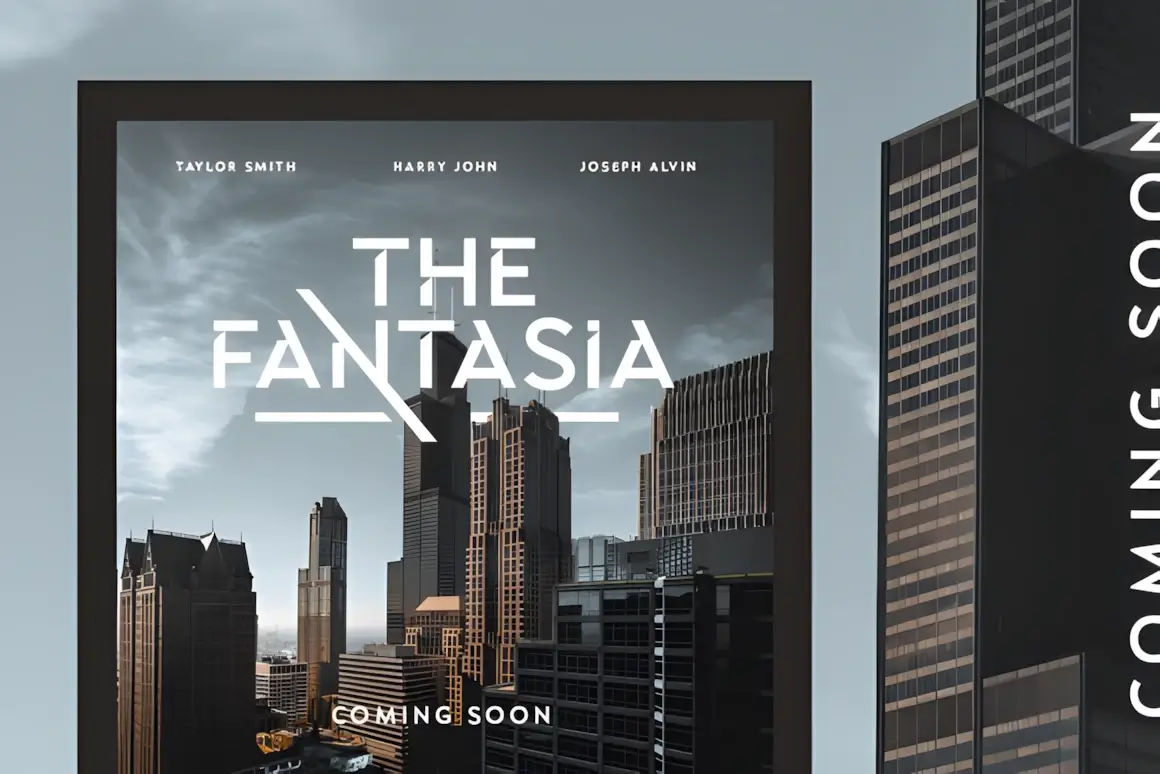
Blackpast is a cool, modern font that's all about celebrating those unique, abstract shapes. Toss it into your creative mix and see how it makes your ideas pop!
5. Equinox Font
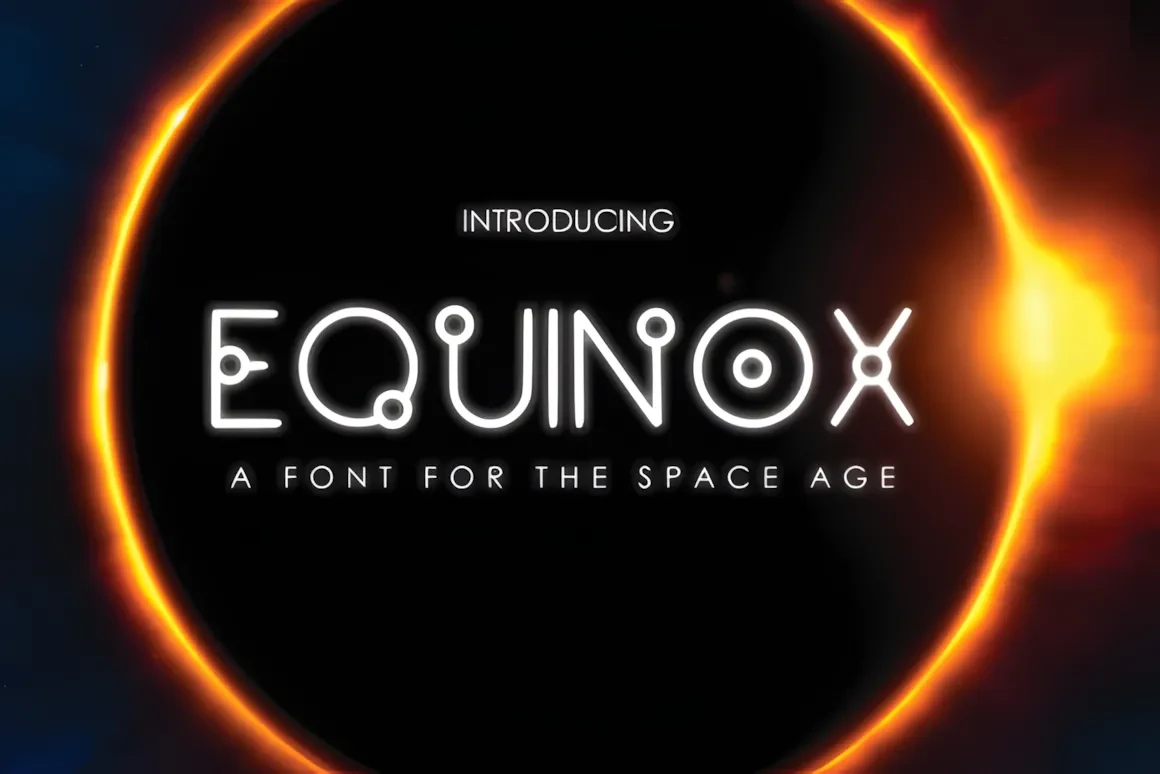
Equinox is a cool, handmade font with a space-age vibe that can refresh any design you're working on!
6. Veristic Font
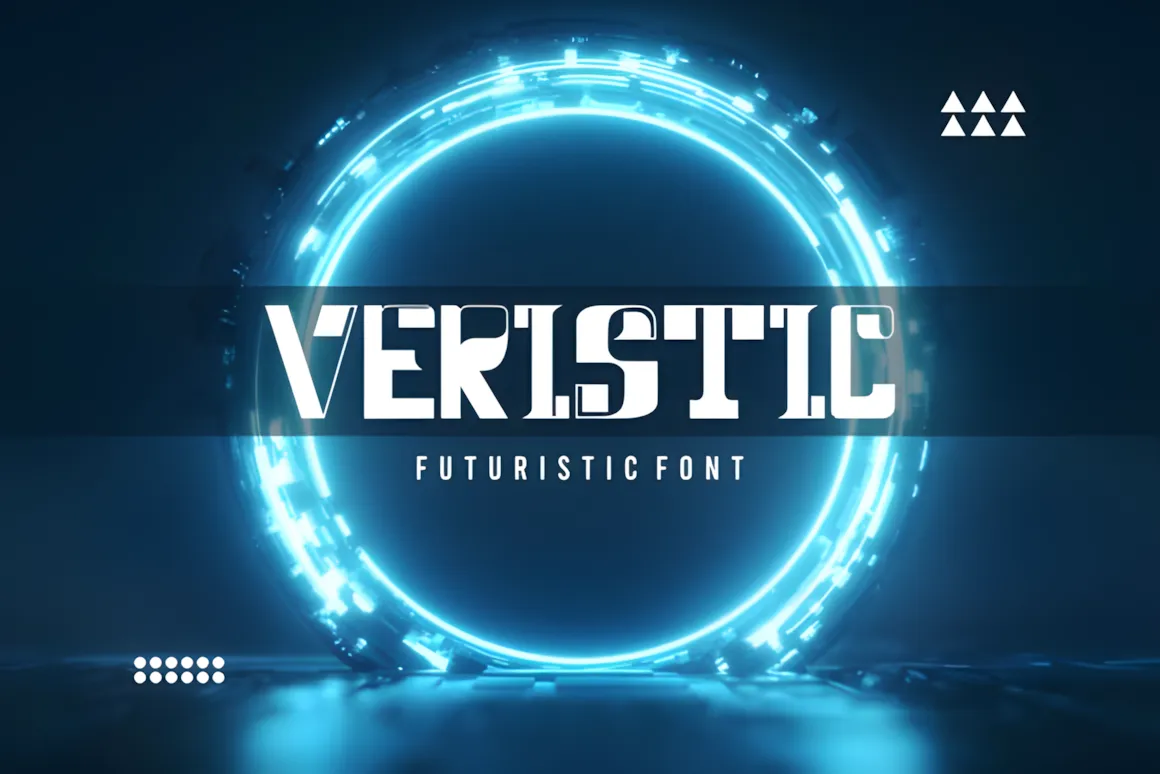
Veristic is a display font, and its futuristic, sci-fi style is really something. You can use it for all sorts of projects: crafting, SVG designs, logos, lettering, wedding invites, fashion stuff, book covers, magazine layouts, cards, packaging, posters, labels, clothing designs, event promotions, quotes, merchandise, social media posts, branding, and pretty much anything else you can think of!
7. Strila Font
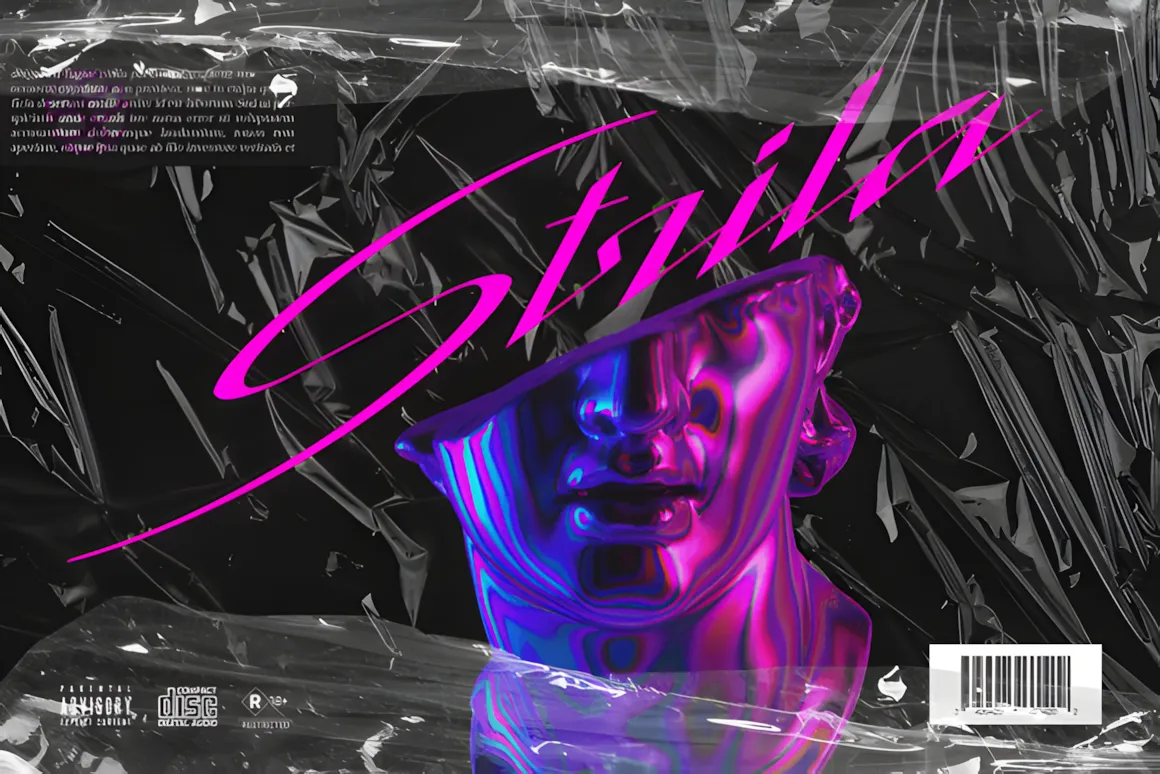
Strila is a handwritten font that's cool, neat, and kinda special. Whatever you're working on, this font could be a super useful addition to your font collection because it can make anything look better.
8. Terminator Font
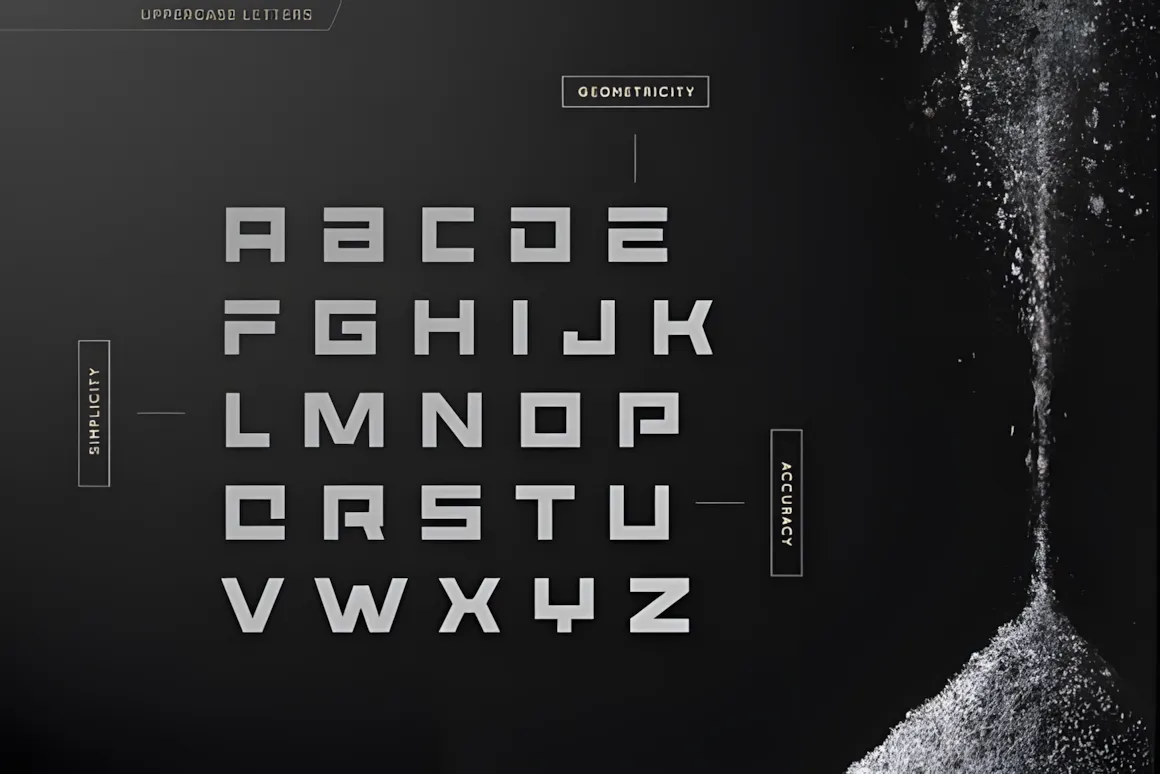
Terminator is a bold, thick font that's great for making a statement. Try it out in your designs and see how it grabs people's attention!
9. Neo Tech Font
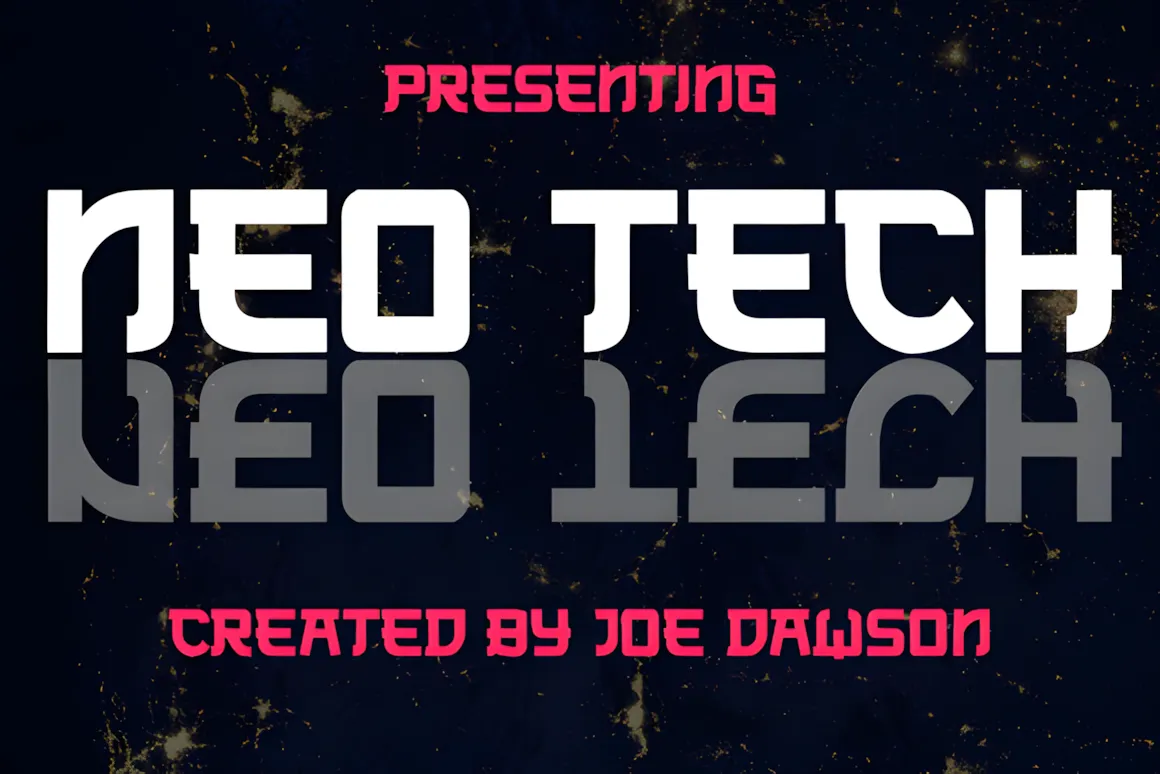
Neo Tech is a cool display font that takes its cues from Asian designs. It has both smooth curves and sharp edges, which will make your designs pop.
10. Prime Font
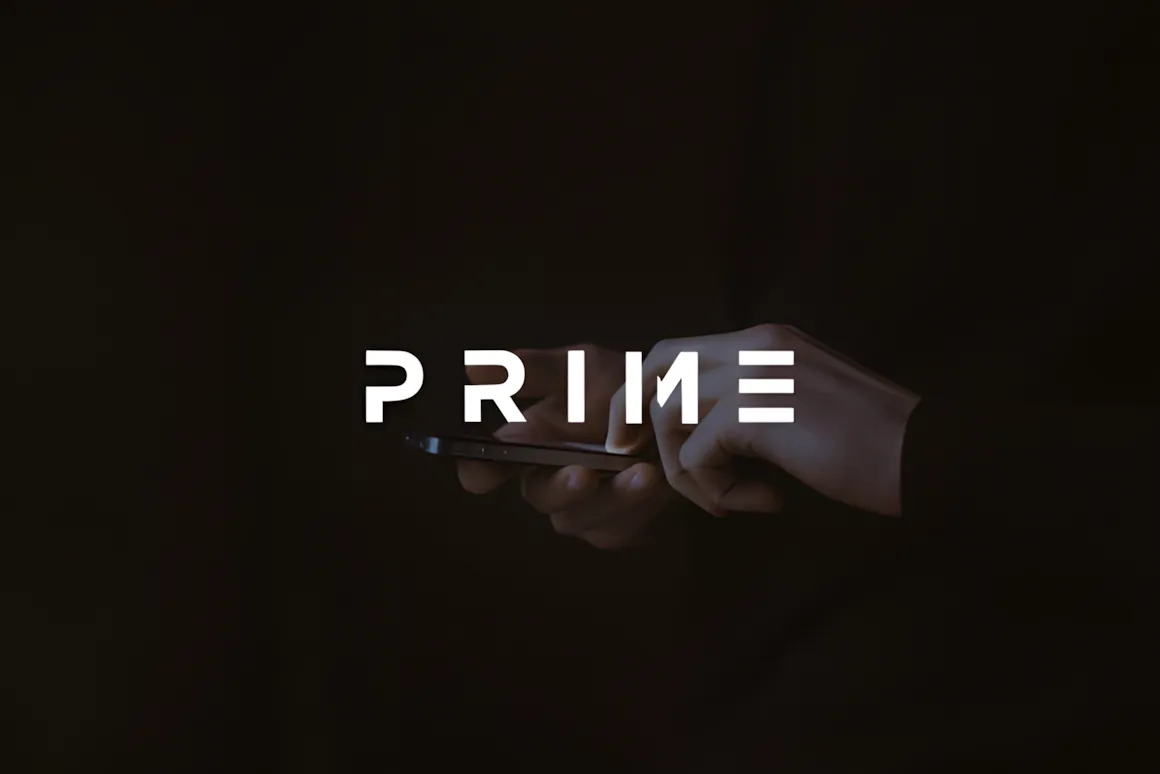
Prime is a cool, modern font that's all uppercase and has a bold, sans-serif style. It's got a futuristic look with sharp, geometric corners, so itโs perfect for any tech-related design you might be working on.
11. Borg Font
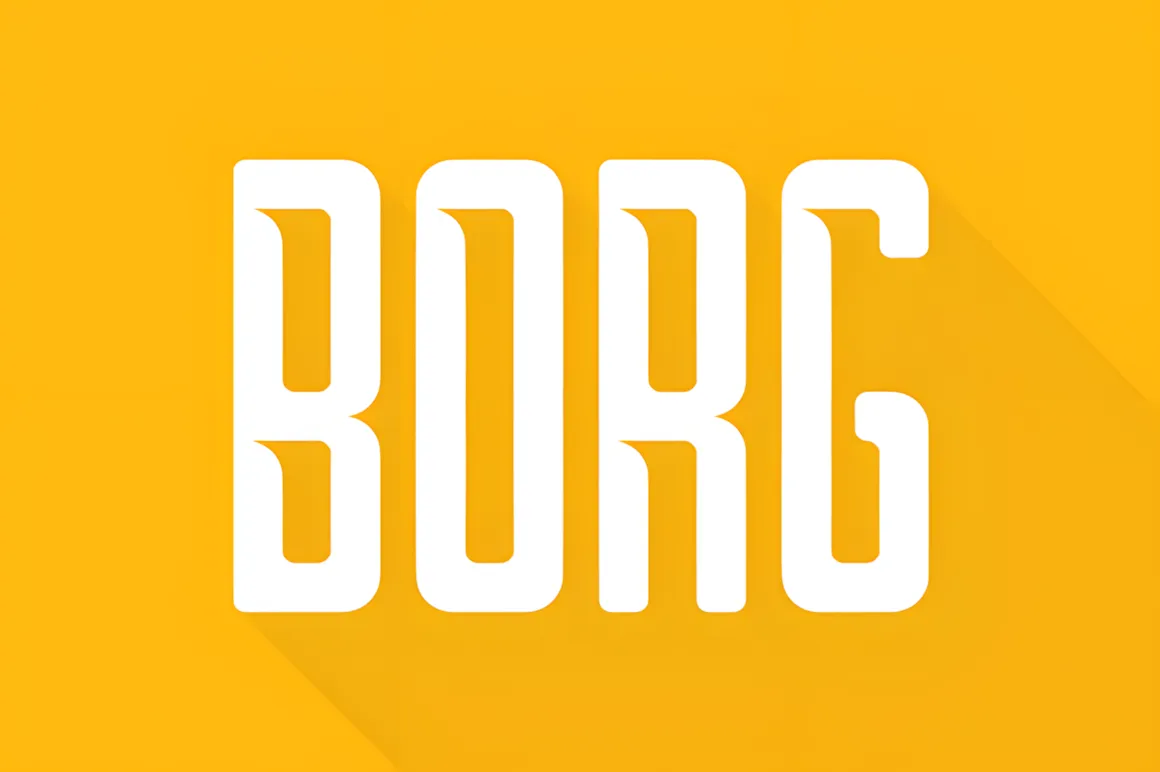
Borg is a cool, free font for displays. It's geometric but has a neat curved cut. I got the idea from Swedish furniture design. Back in 2015, PAOK FC, a Greek football team, used my font on their new jerseys. Then in 2016, Levante UD, SSC Napoli, and Paris Saint-Germain used it on their jerseys too!
Borg was made with love by David Sum, a Hungarian motion and graphic designer.
12. Ridge 5 Bold Font
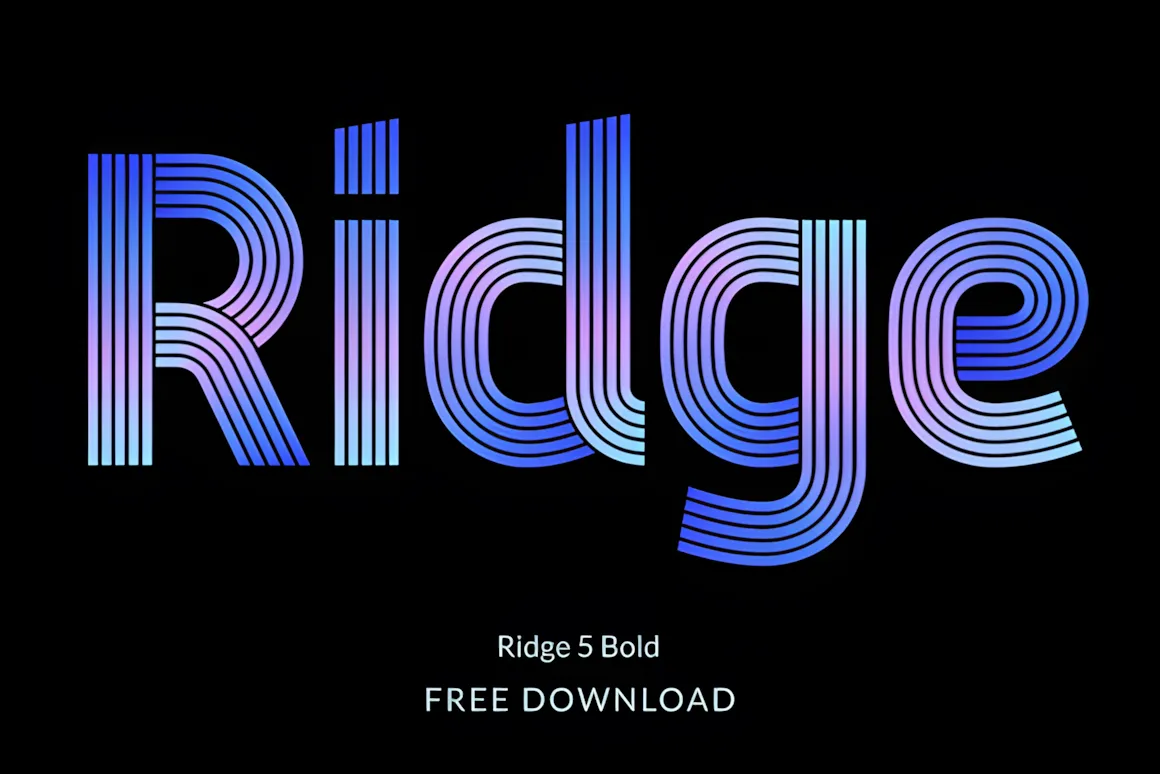
Ridge 5 was designed from the need for a complete multi-line font thatโs not limited to only uppercase, but also includes lowercase and all European diacritics. In addition, alternate characters have been added to the font, giving graphic designers and art directors more design options.
Its shapes are geometric with a natural flow, giving it a unique appearance.
13. Moon Light Font
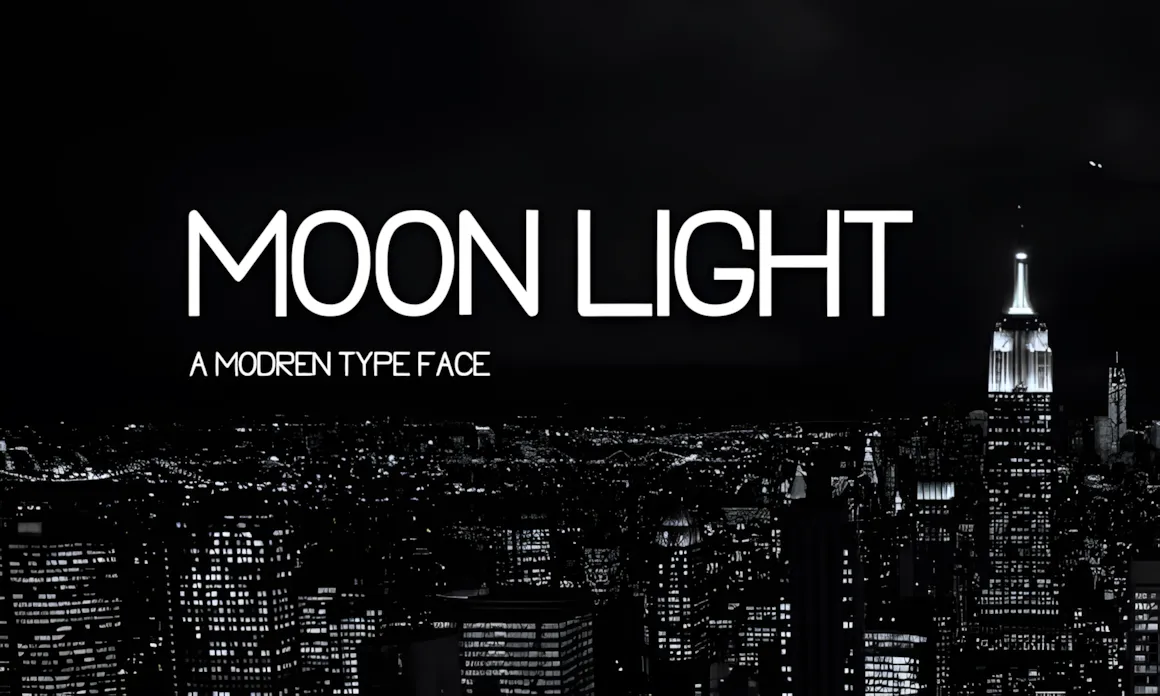
Moon Light is a sans serif font that can really bring a modern vibe to your work.
It's made to be a go-to choice, with the ability to take your creative ideas to the next level!
14. Astron Boy Font
The rounded-square Astron Boy look was taken from the old Astron Belt laser-disc game. If you want a look that's modern and bold, this could work for your designs.
15. Nasalization Font
- Inspired by sci-fi or cyberpunk, ideal for gaming or film projects
Essentially, a futuristic font should feel like it belongs in a time that hasnโt happened yet.
Futuristic fonts are more than just design elements โ theyโre visual storytellers, carrying the essence of innovation, speed, and the future itself. Whether youโre building a brand that revolves around technology, launching a sci-fi gaming interface, or designing a product for tomorrowโs world, the right font sets the tone from the very first glance.